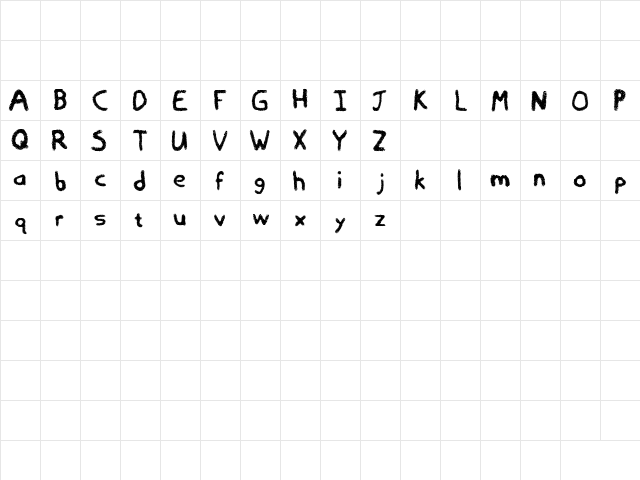
Empty Trash Regular
| Designer | Brian Clores |
Design Context for Empty Trash Typeface
Empty Trash is a composed and adaptable typeface that performs quietly and consistently across a wide range of design contexts.